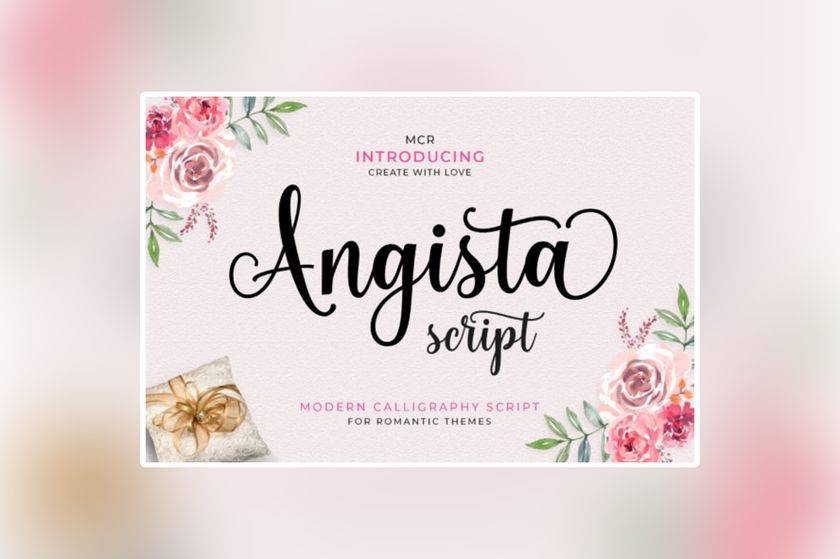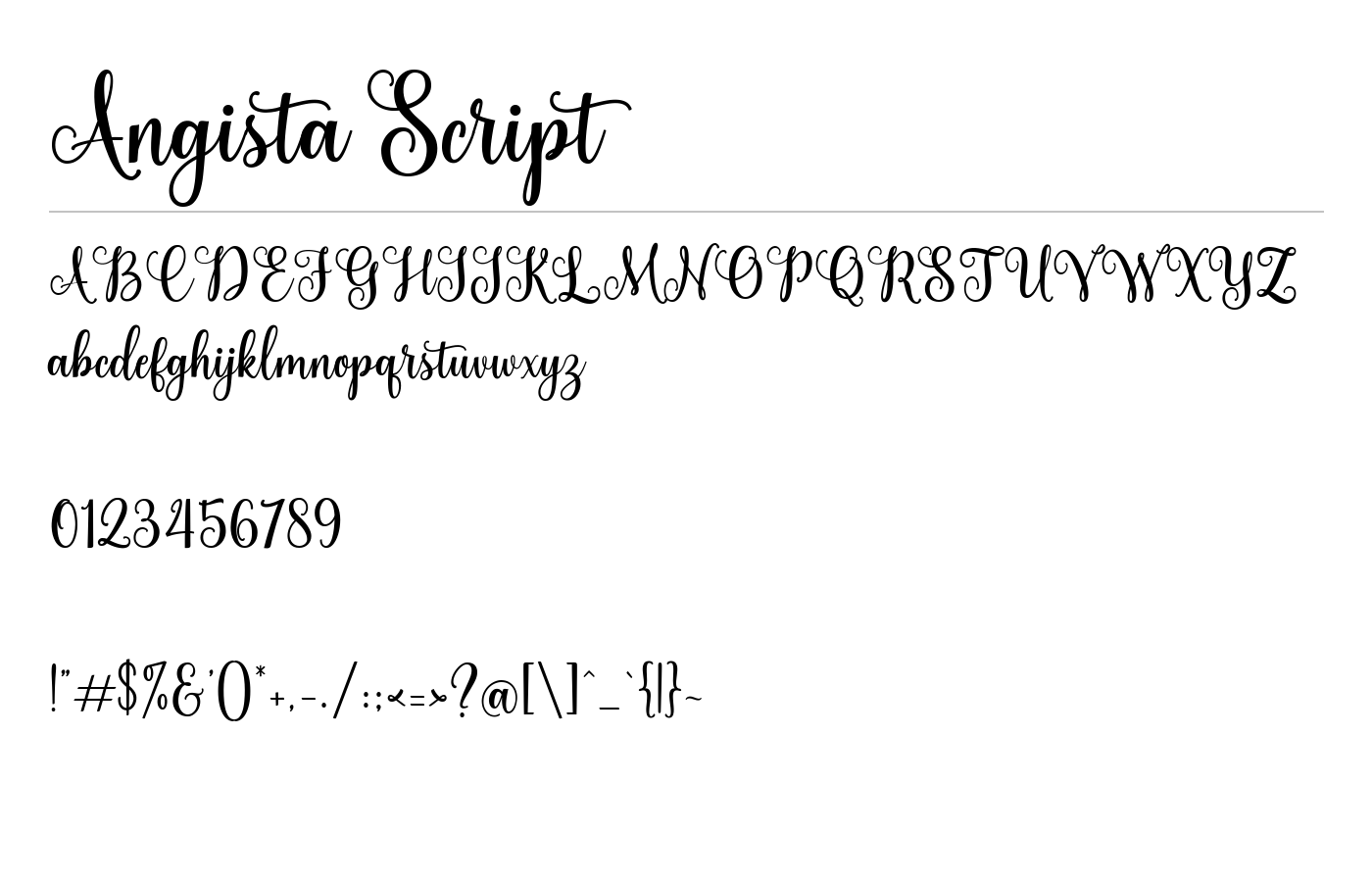
Angista is a delicate script font with elegant, flowing characters that combine thin and smooth strokes with playful swashes, especially prominent in the uppercase letters. Its slender, handwritten style exudes a refined, romantic charm, making it ideal for wedding invitations, feminine branding, and decorative headlines where a touch of grace and personality is desired. This font works best in designs that require a light, stylish flair rather than heavy text blocks, perfectly fitting luxury, fashion, and creative projects.
Angista Font
About Angista Font